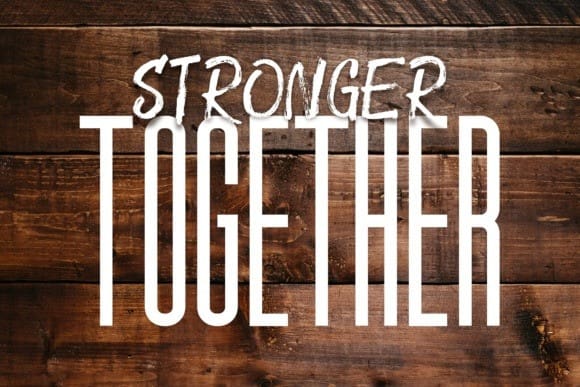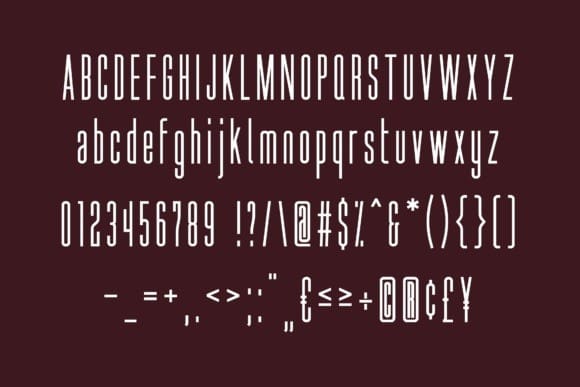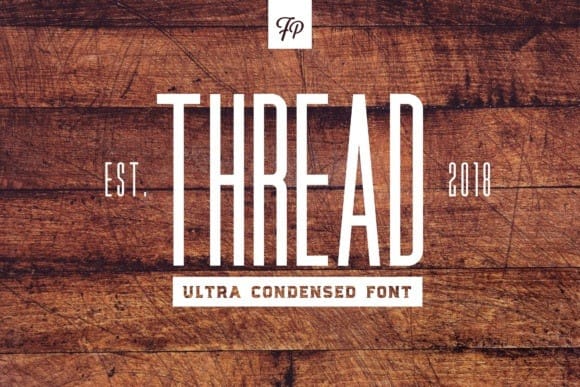
Thread Condensed Font
Thread Condensed Font, is a gorgeous condensed display font, perfect for use in headers that require a clean yet exciting appeal. This font works great in a vertical layout as a bold element or can be used anywhere you need a legible text element.